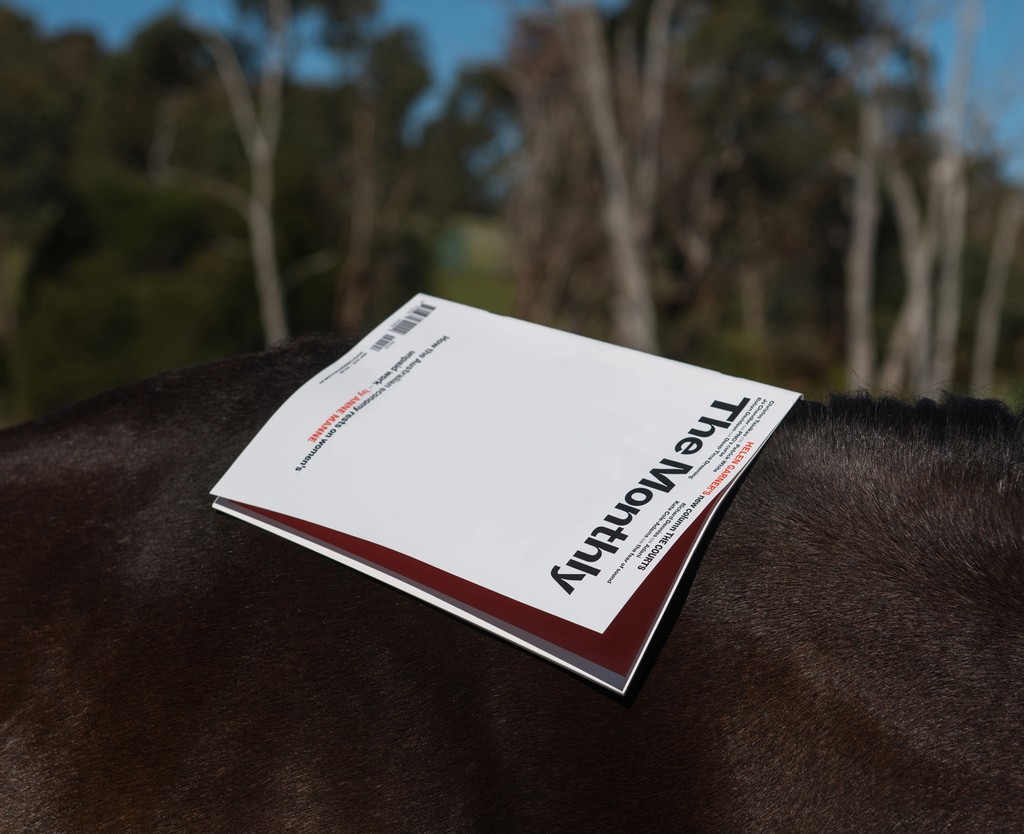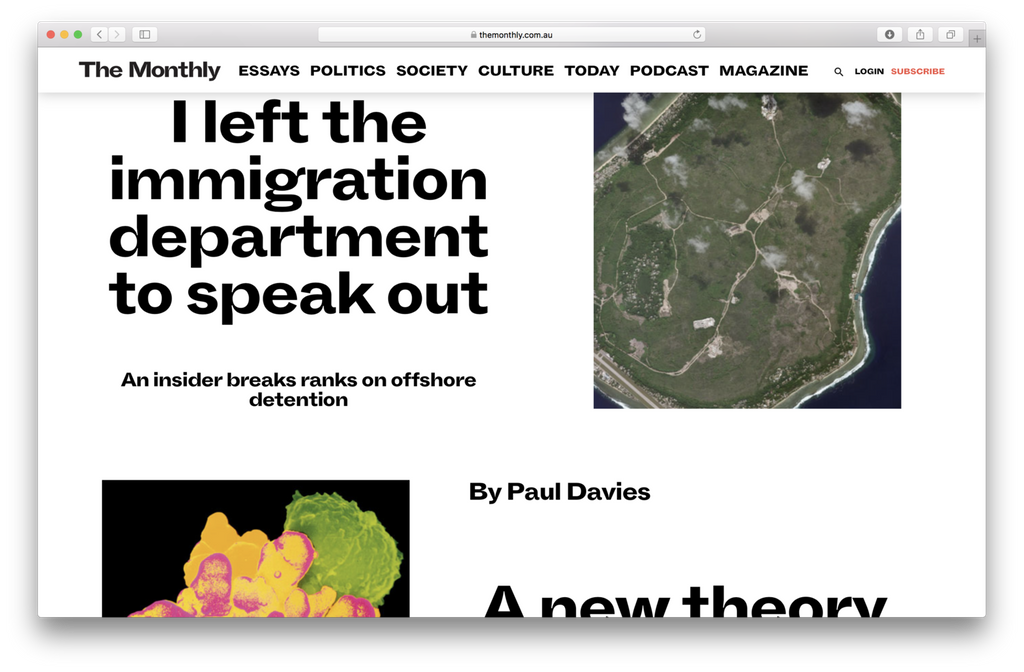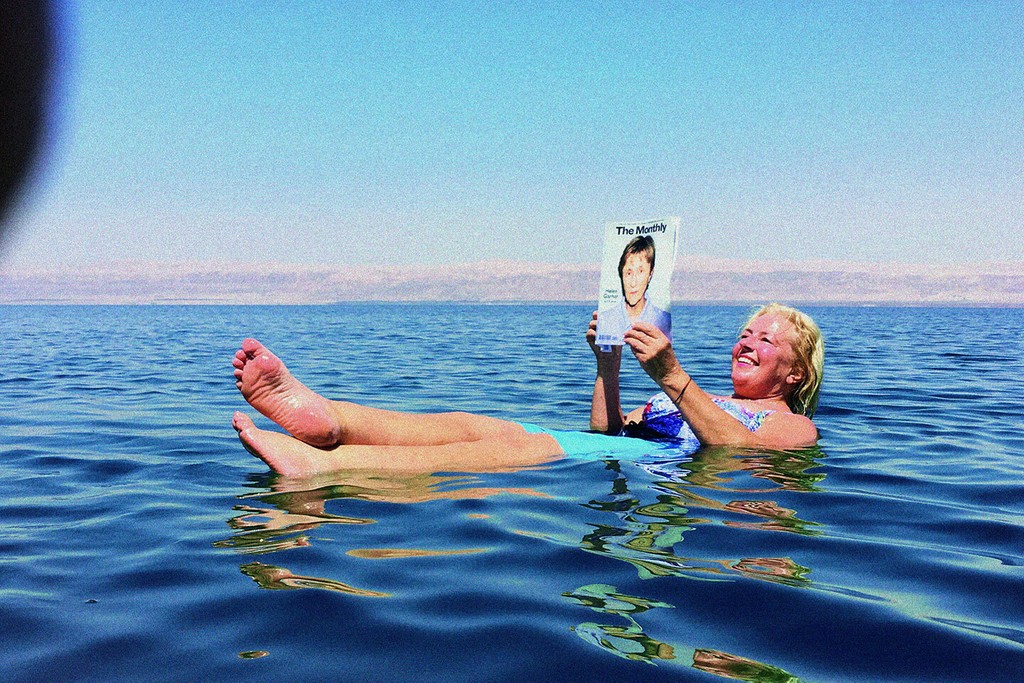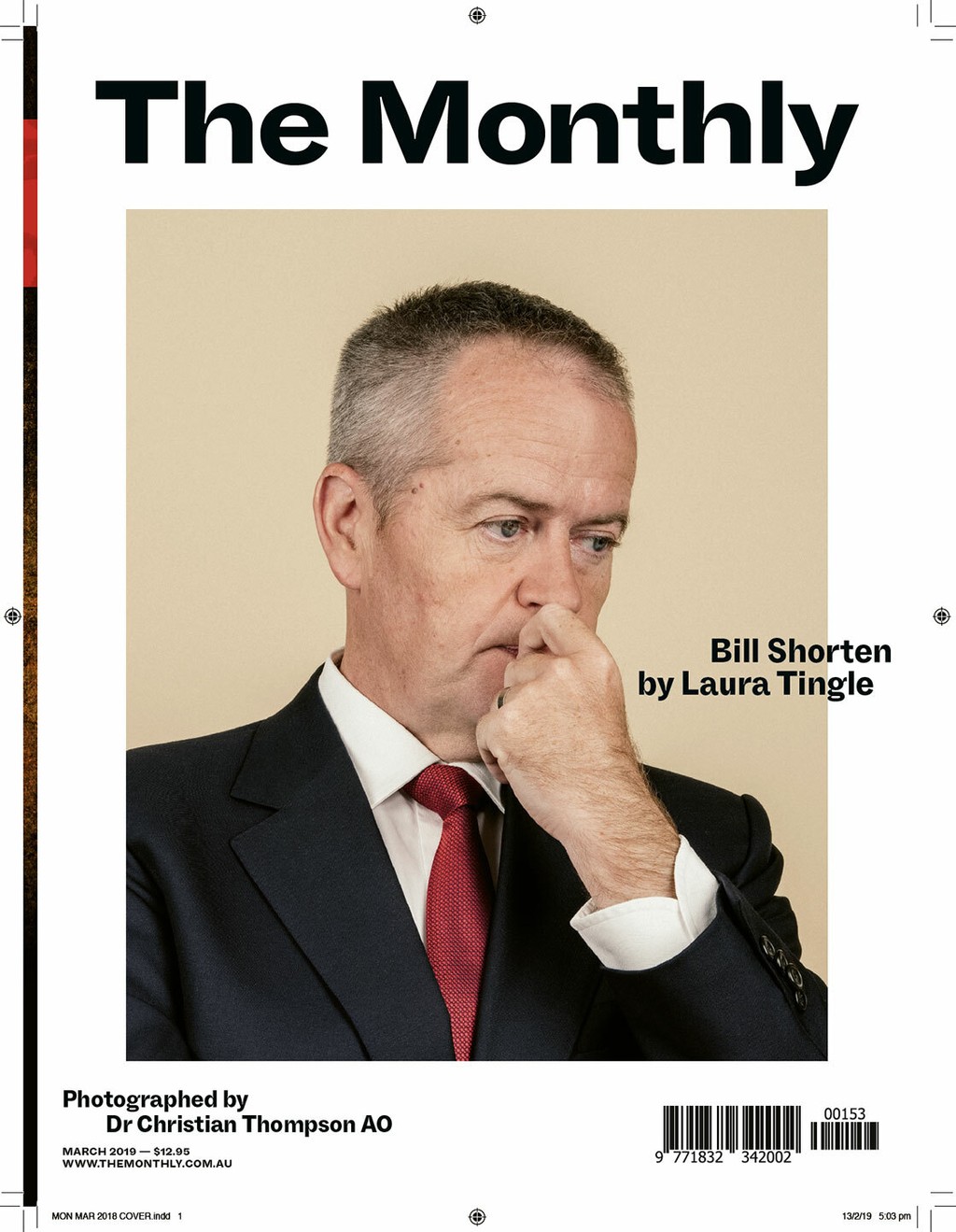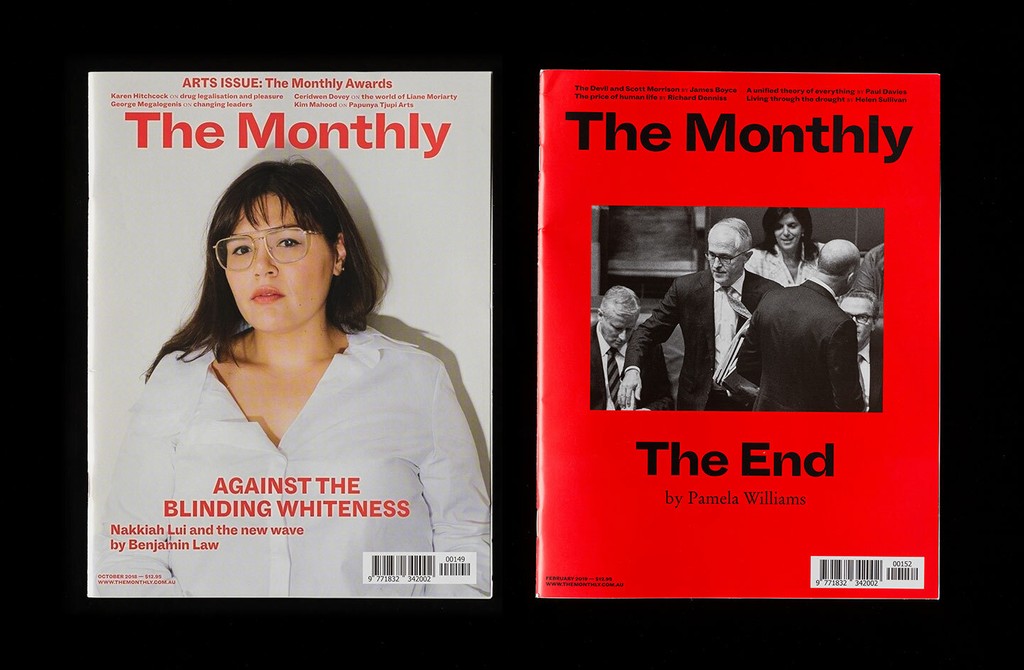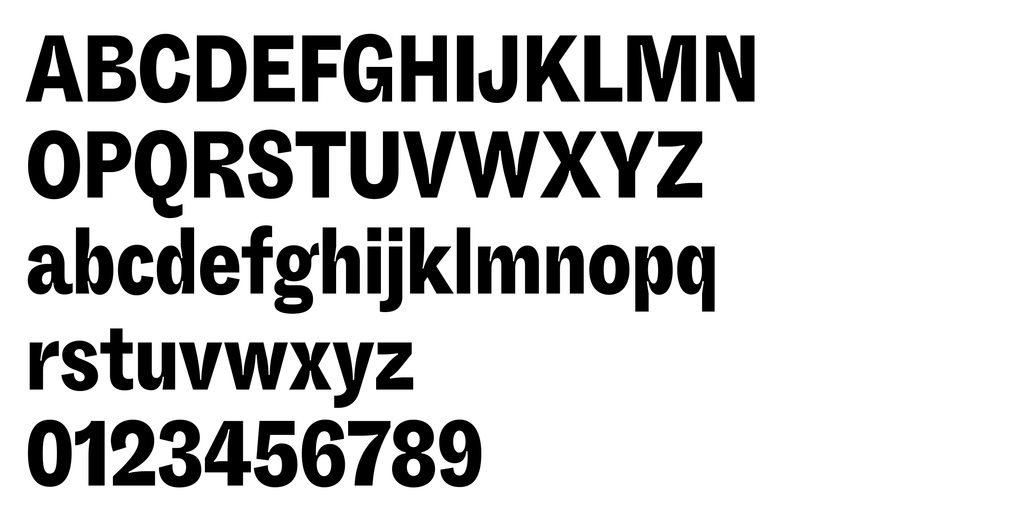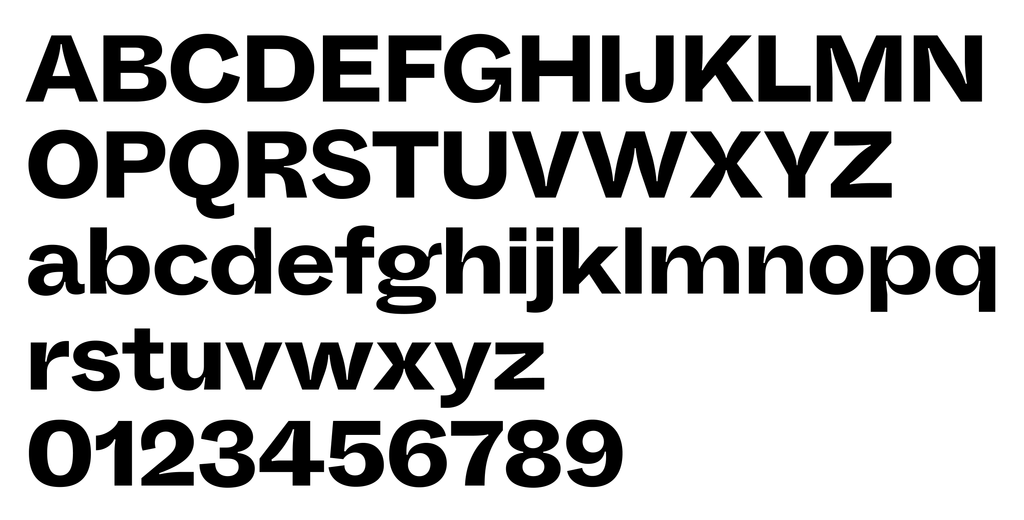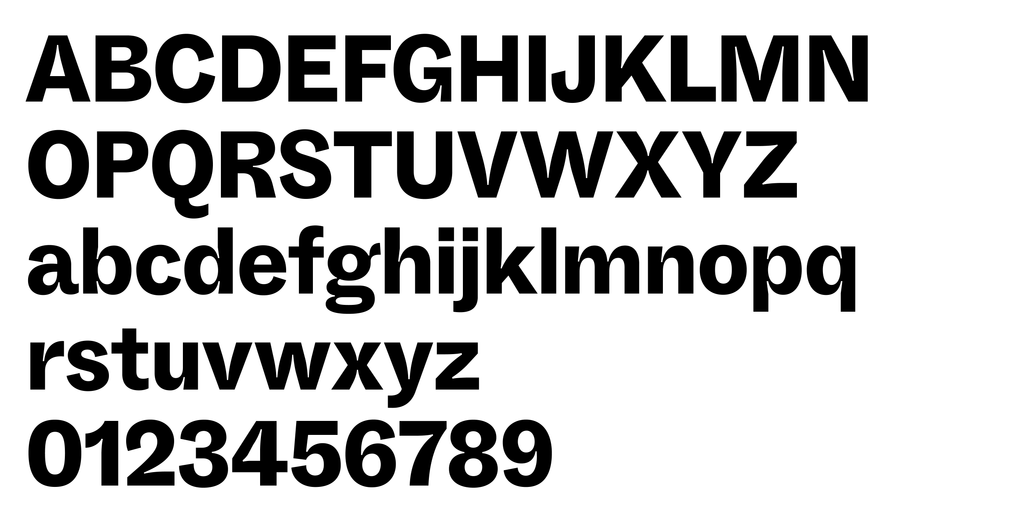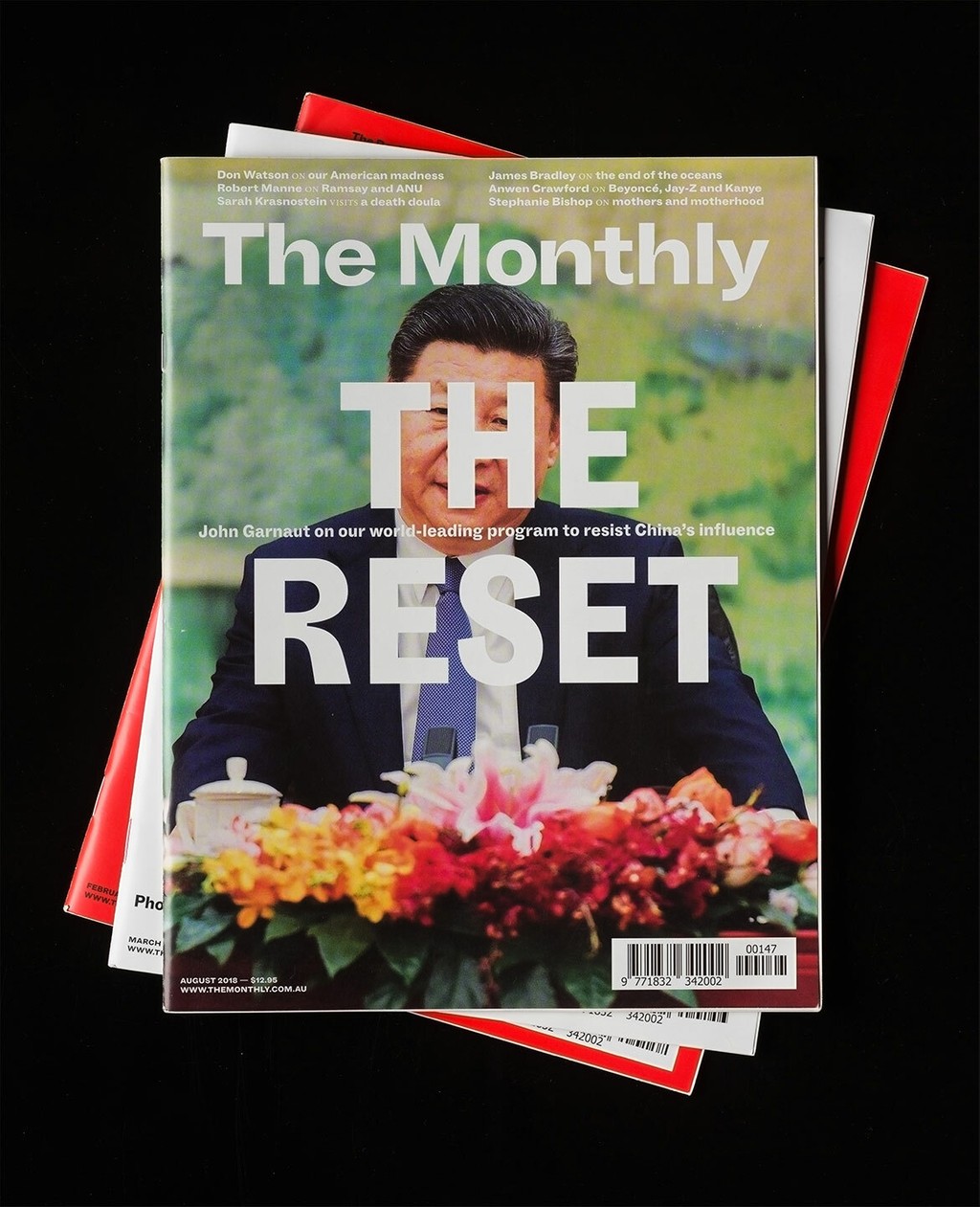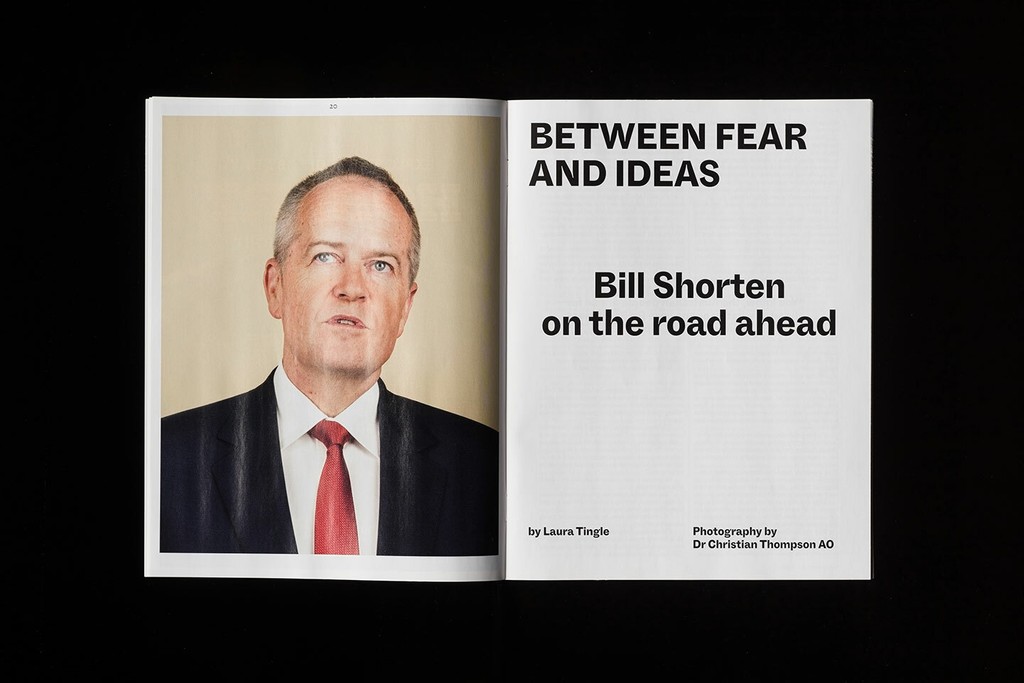
The Monthly
The Australian independent periodical The Monthly commissioned us to create a custom title font for its 2017 redesign, under the art direction of Paul Mylecharane and Ziga Testen. The Monthly is one of Australia’s boldest voices in politics, society, and culture, known for its mixture of investigative reporting, critical essays, and provocative commentary.